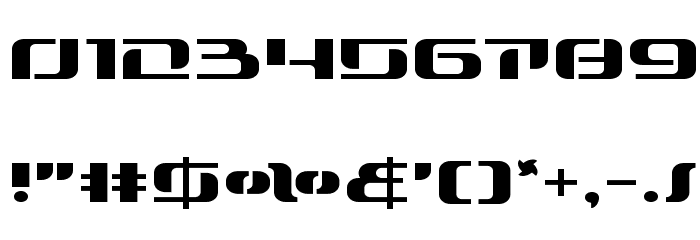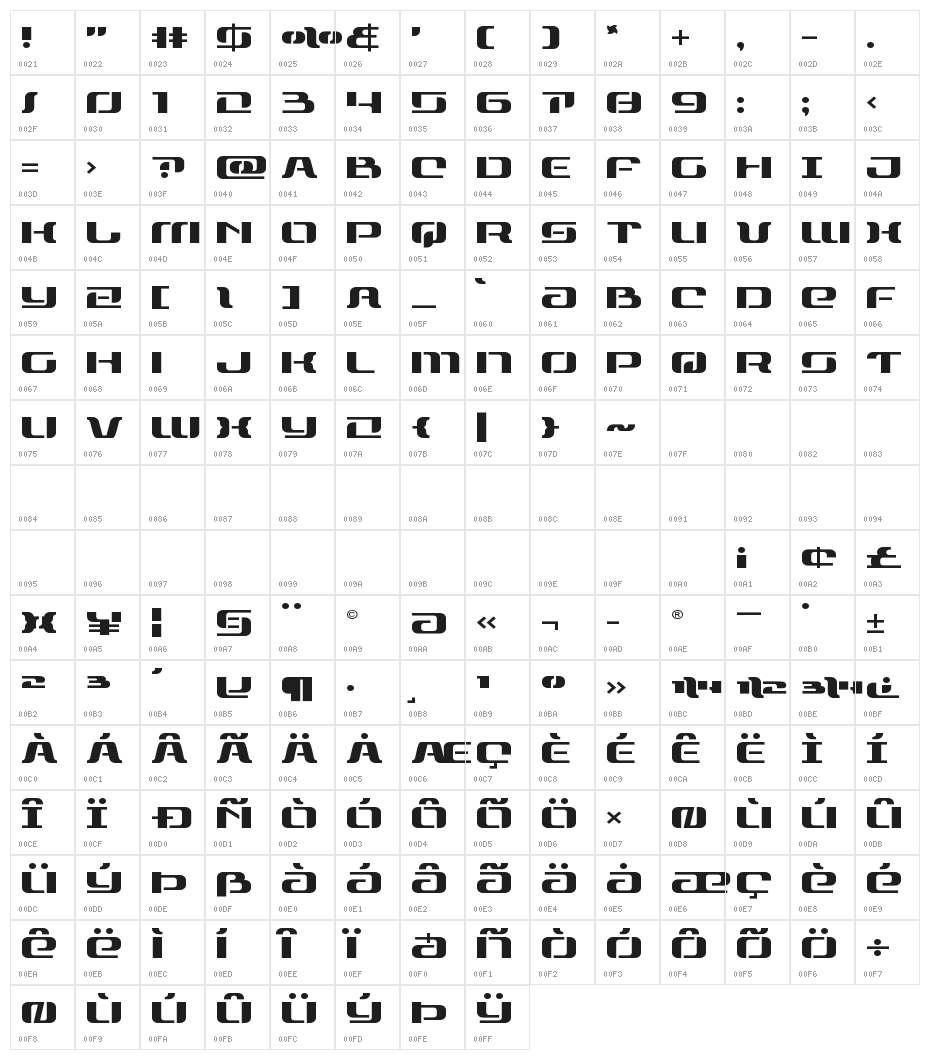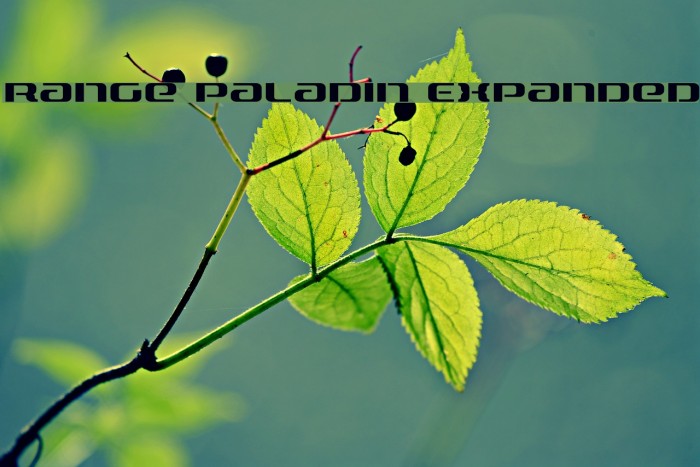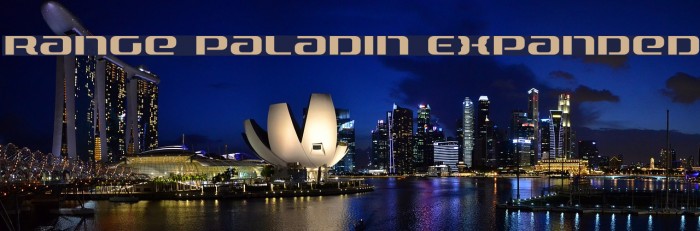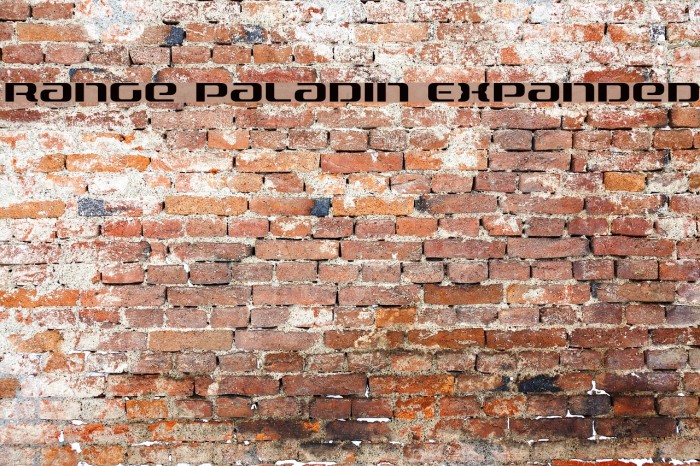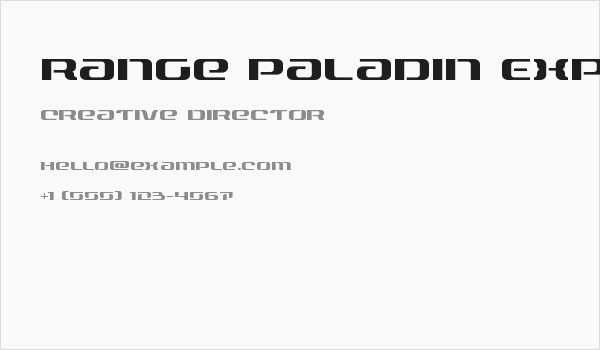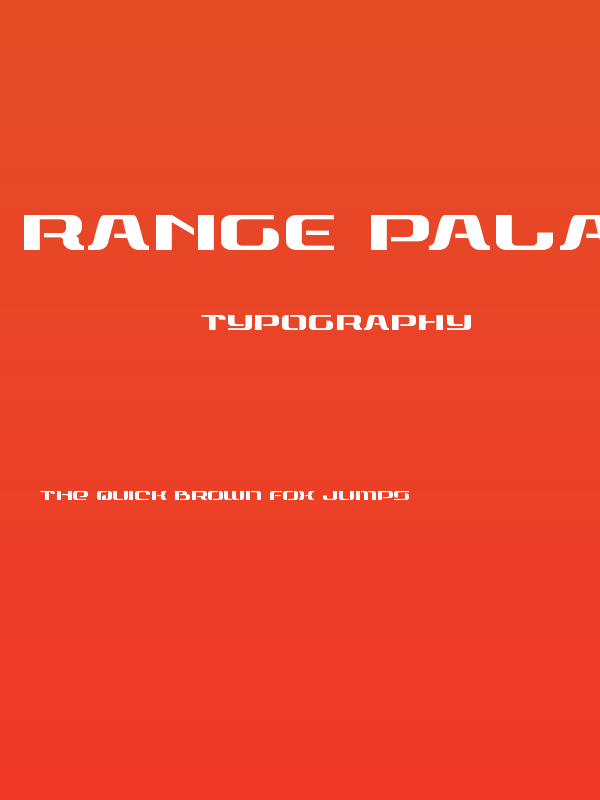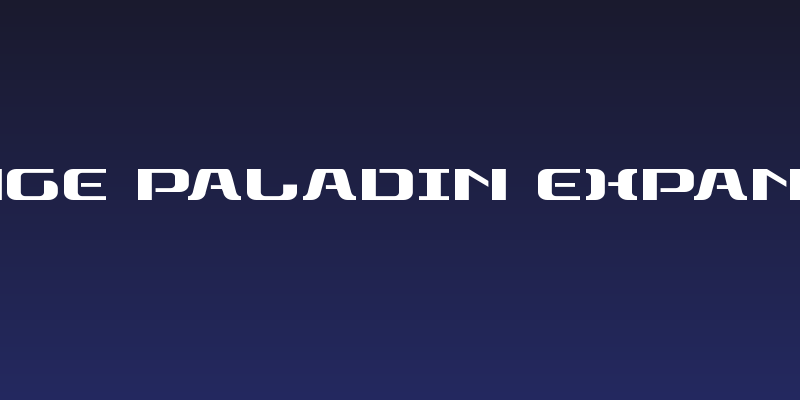
Range Paladin Expanded Font
Range Paladin Expanded Description
This font features a bold and futuristic design, characterized by its expanded width and geometric shapes. The letters have a distinct, angular style with sharp edges and unique cutouts, giving it a modern and technological feel. The uppercase and lowercase letters maintain a consistent design, while the numbers and special characters complement the overall aesthetic. The font's expanded width and bold weight make it highly visible and impactful, suitable for attention-grabbing designs.
| Proposed Projects | Ideal for sci-fi themed projects, technology branding, video game titles, and futuristic posters. |